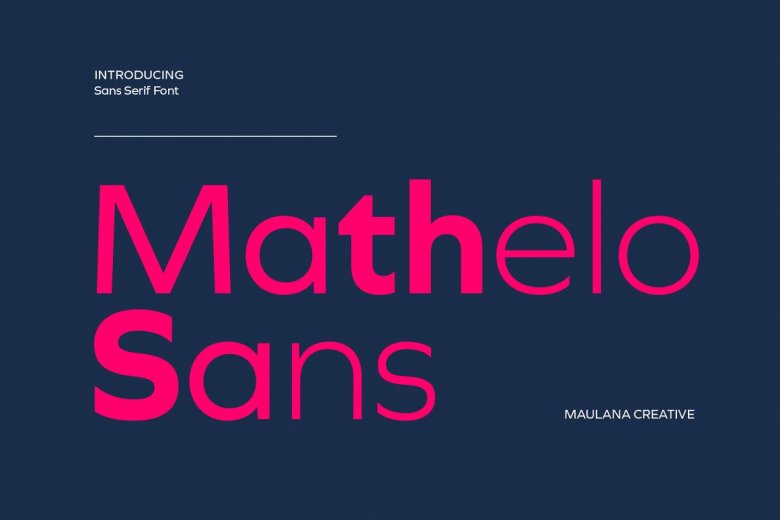
Mathelo Font
Mathelo is a contemporary semi-geo-humanistic sans-serif typeface. This font features three different thicknesses of the strokes, creative characters complete with some ligatures and stylistic alternates. So you can come up with an even more creative product. You can easily print this typeface with. Mathelo font covers over 100+ languages and scripts.
This font is suitable for logo design, Social media, Film titles, Book titles etc all kind of short text even a long text letter and the text is particularly good for your secondary text font. With sans or serif, this font together with Mathelo will put a stunning work before you.
Mathelo Sans Serif Font